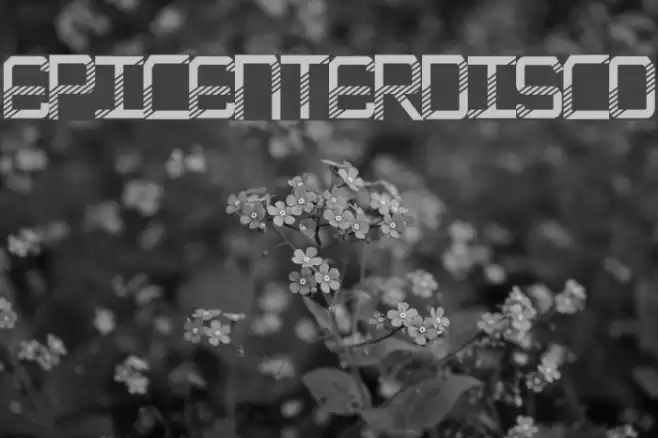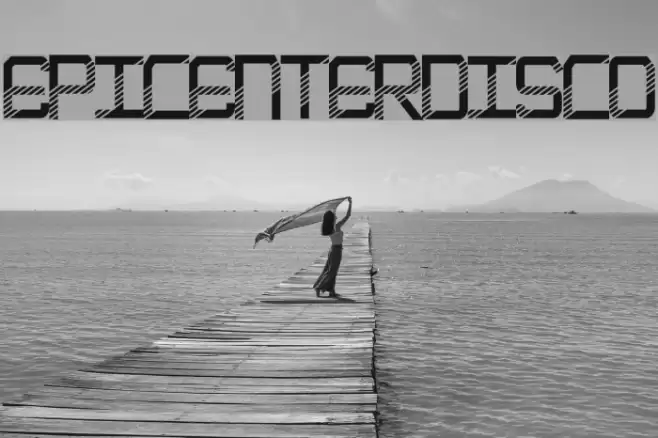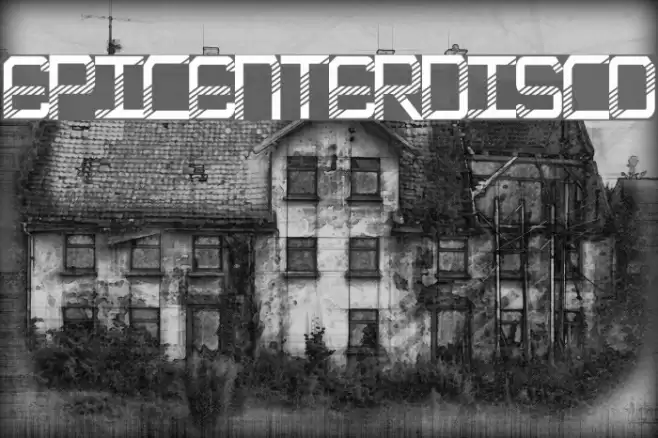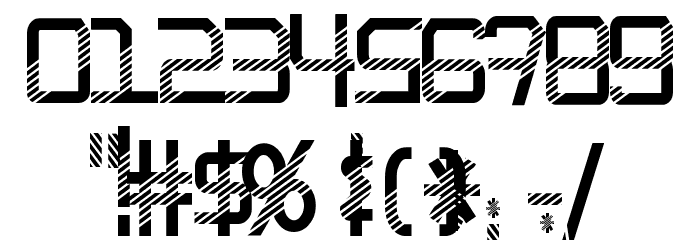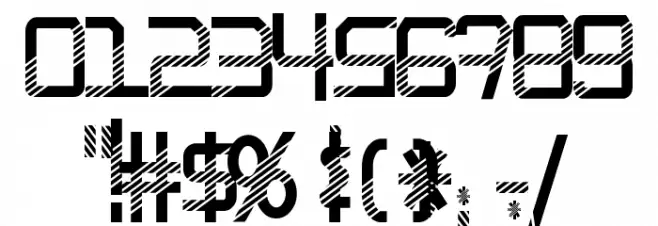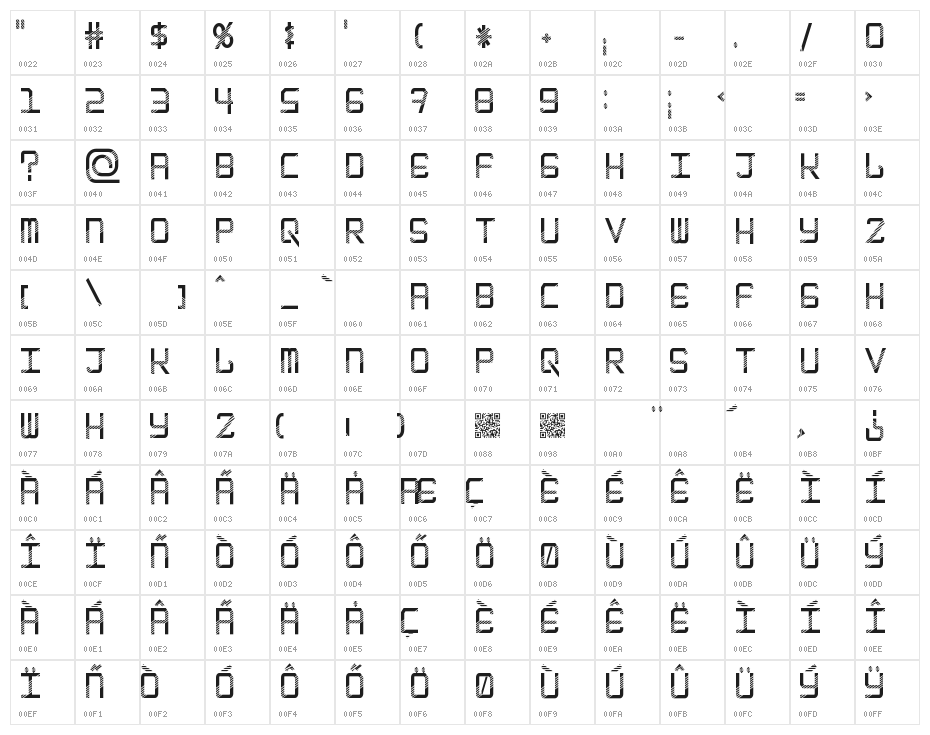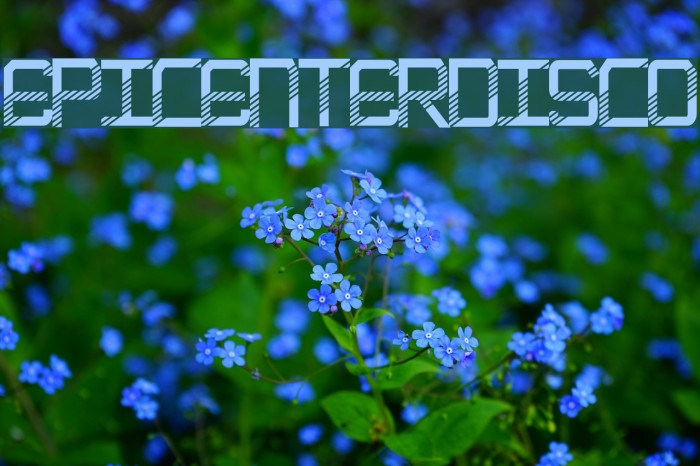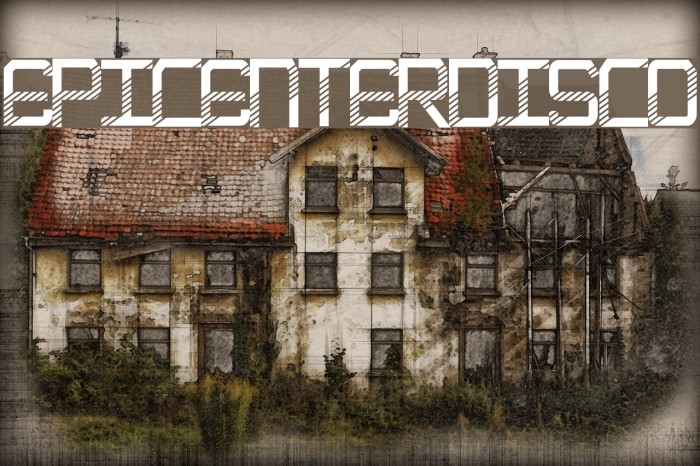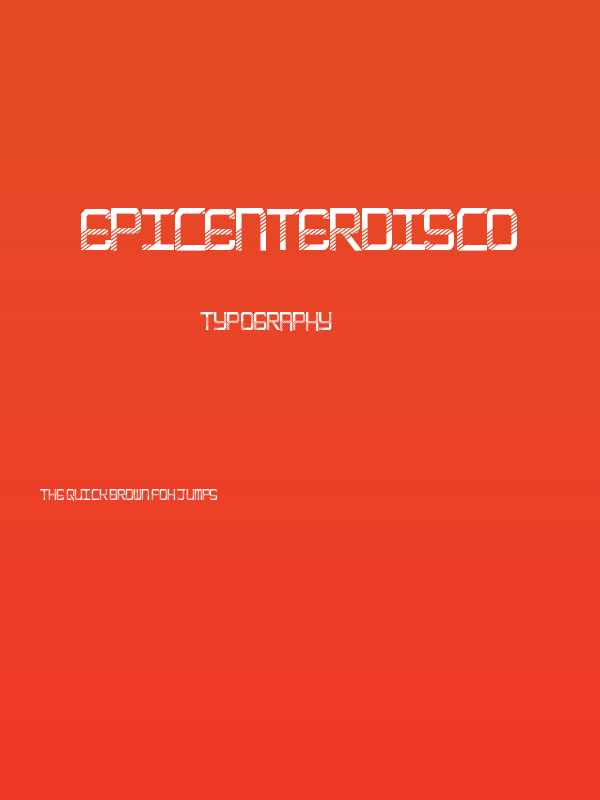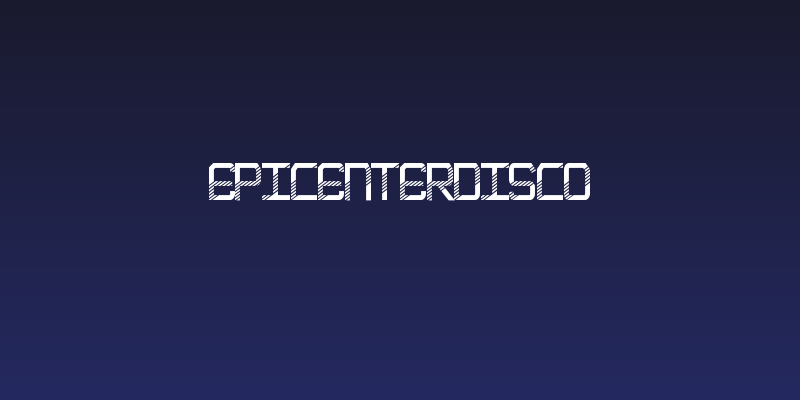
EpicenterDisco Font
EpicenterDisco Description
This font features a bold, geometric style with a distinct diagonal line pattern running through each character, creating a dynamic and energetic appearance. The uppercase and lowercase letters maintain a consistent structure, emphasizing sharp angles and clean lines. The numerals and special characters follow the same design principles, ensuring uniformity across all glyphs. The font's unique patterning and strong presence make it ideal for eye-catching designs.
A bold, geometric font with diagonal line patterns for a dynamic look from Uncategorized fonts.
- Proposed Projects: Ideal for modern branding, event posters, album covers, and digital media where a striking, contemporary aesthetic is desired.